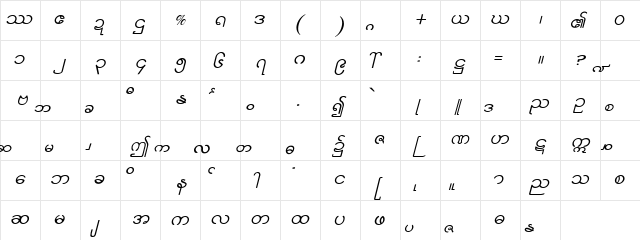
Aung San Burma
Design Context for Aung San Typeface
Aung San takes a measured approach to typography — its balanced proportions and neutral character make it a reliable workhorse for both digital and print work.